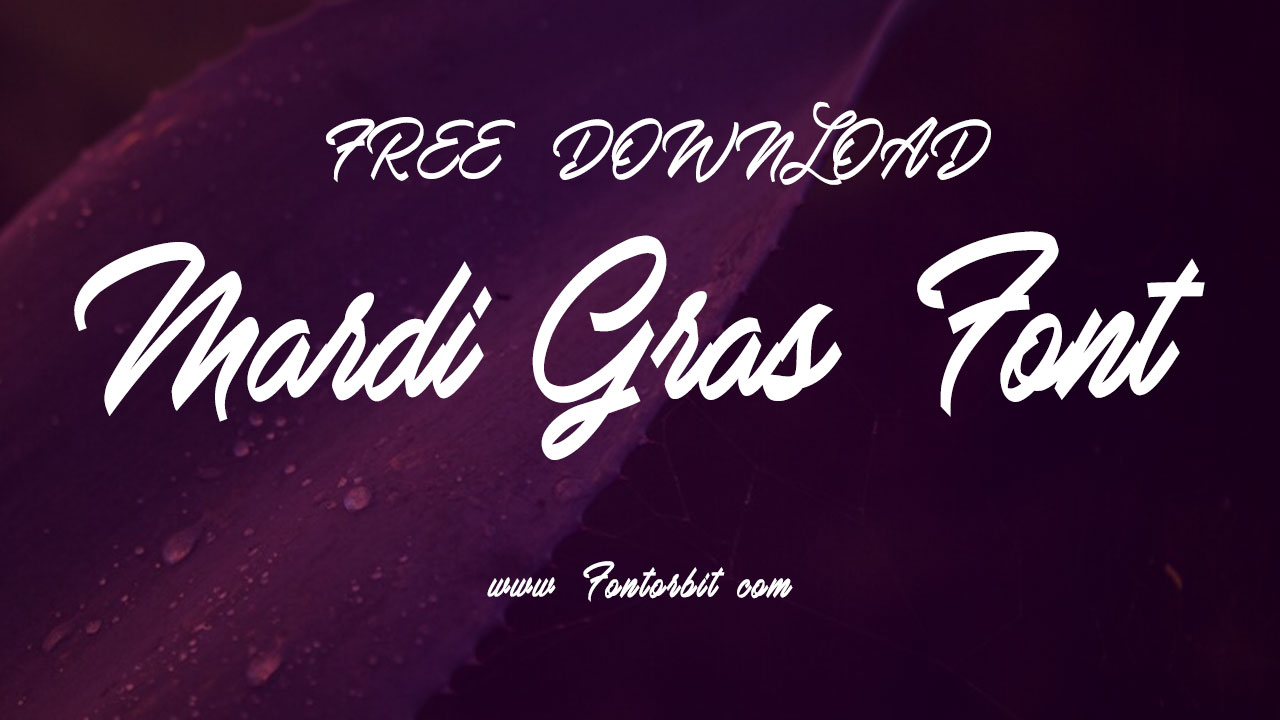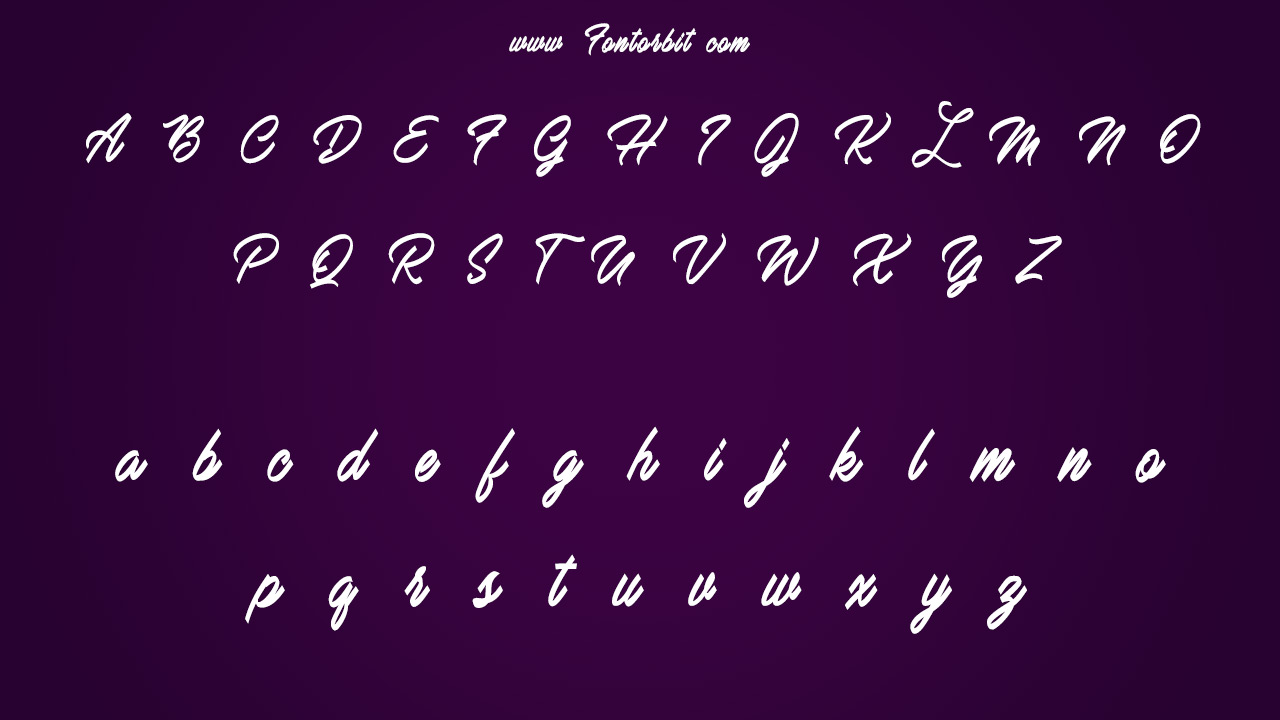
The Mardi Gras Font is a classic typeface designed to evoke the festive and lively atmosphere of the Mardi Gras celebration. Created by Billy Argel, it was first released on December 10, 2004.
It belongs to the Fancy Script font family and is known for its elegant, handwritten style, perfect for adding a personal touch to any design.
Type Of The Mardi Gras Font Family
The Mardi Gras Font comes in two primary styles:
a. Mardi Gras Regular
b. Mardi Gras Bold
Using Occasions of the Mardi Gras Font
The Mardi Gras Font is ideal for various occasions, especially those that require a festive, celebratory feel.
The Mardi Gras Font is prominently used on Etsy for custom party invitations, on Pinterest for DIY decor and themed printables, and Creative Market in pre-designed templates for posters and event flyers. Some common uses include:
- Event Posters
- Logo Design
- Holiday Cards
The Mardi Gras Font is a versatile and festive typeface perfect for capturing the lively essence of Mardi Gras in your designs. Whether you’re working on a poster, invitation, or logo, this font brings a touch of celebration to any project. If you need a font that stands out and evokes the joy of Mardi Gras, this is an excellent choice.
5.What Is Mardi Gras Style?
Mardi Gras style is a vibrant and festive design aesthetic characterized by bold handwriting, calligraphy, and fancy fonts. It often includes Mardi Gras masks, bright colors, and detailed text elements.